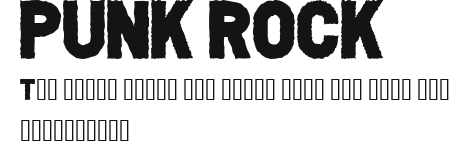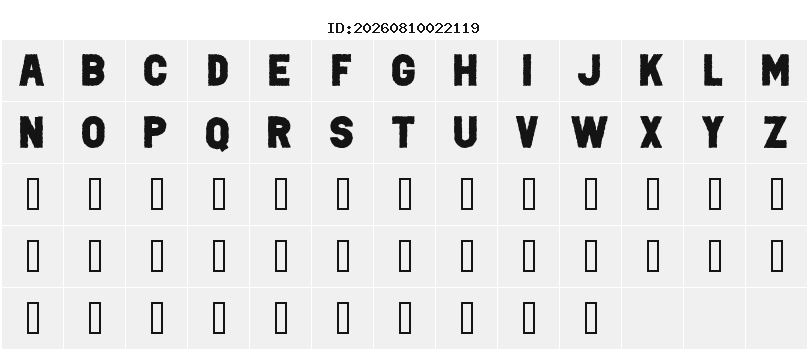
PUNK ROCK Preview
• Font Name: PUNK ROCK
• Font Style: Color Fill
• Full Font Name: PUNK ROCK Color Fill
• Character Count: 27
About PUNK ROCK.ttf
PUNK ROCK.ttf is a modern, elegant sans-serif font designed for ultimate readability and visual harmony. Perfect for branding, headlines, web design, and print materials.